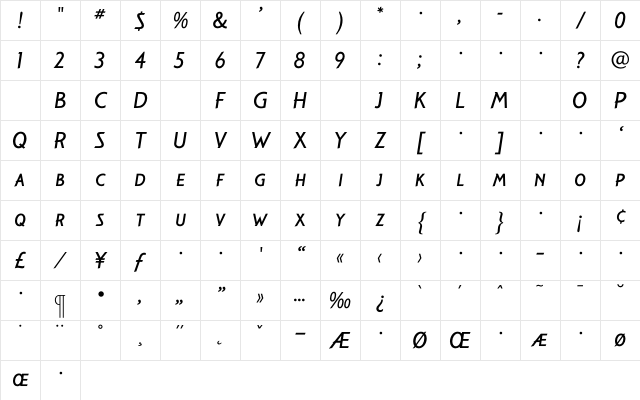
GilmoreFahrenheit Regular Free Font
GilmoreFahrenheit Regular
Design Context for GilmoreFahrenheit
GilmoreFahrenheit is a composed and adaptable typeface that performs quietly and consistently across a wide range of design contexts.